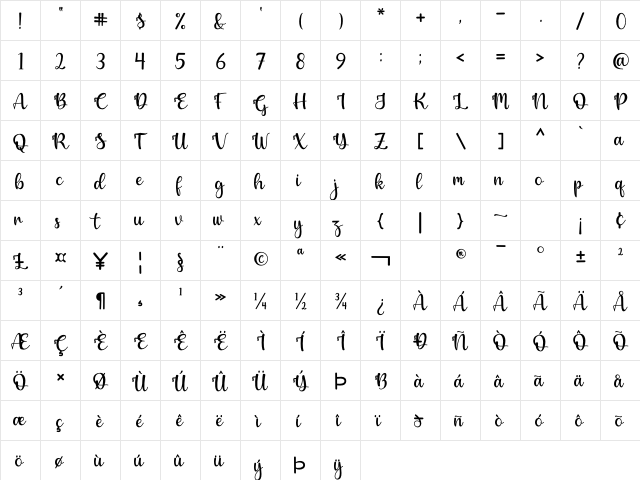
Winter Regular
| Foundry | Fadlilah Studio |
| Designer | Fina Fadlilah |
Design Context for Winter Typeface
Winter is a composed and adaptable typeface that performs quietly and consistently across a wide range of design contexts.